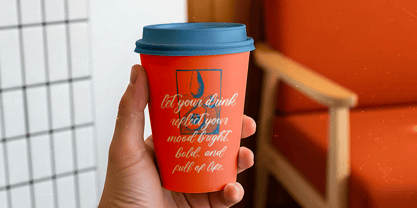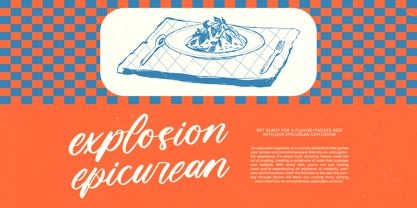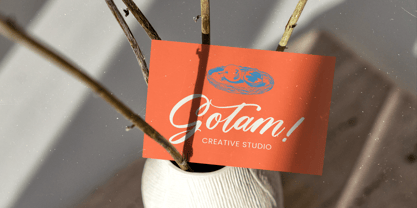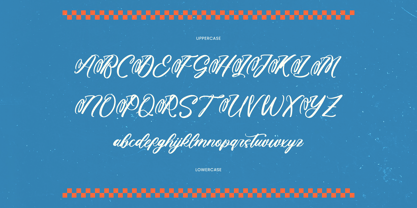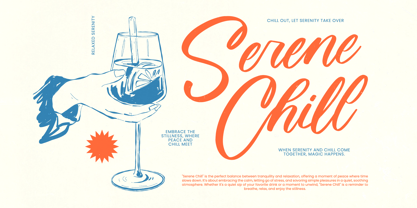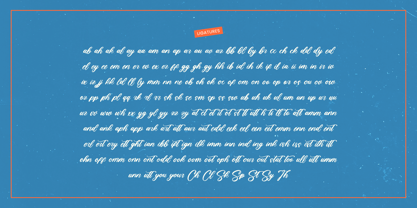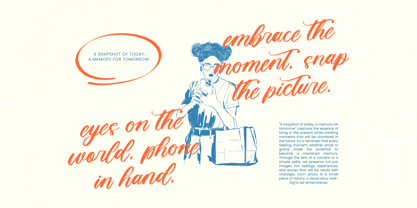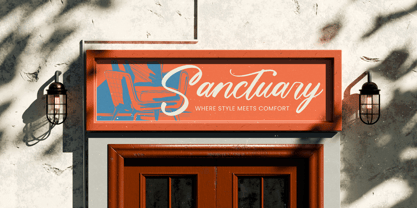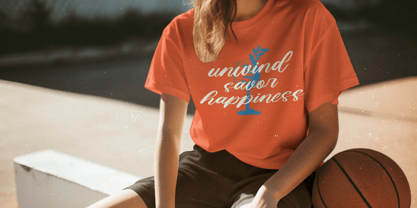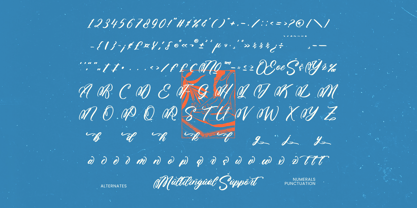
Seafood Gather
by Letterena Studios
The Seafood Gather Font Family was designed by Heru Utama Putra and published by Letterena Studios. Seafood Gather contains 2 styles and family package options. More about this family
Seafood Gather is a bold calligraphy font crafted with smooth handwritten curves and expressive strokes, delivering a warm, welcoming aesthetic perfect for culinary branding, restaurant identities, craft packaging, lifestyle promotions, and editorial layouts. With 574 glyphs, 189 ligatures, and 53 alternates, this typeface gives designers extensive flexibility to create dynamic logotypes, menus, food-themed visuals, and standout social media content. Its fluid rhythm and confident brush style make every composition feel flavorful, modern, and full of character, while multilingual support ensures seamless use across global creative projects.